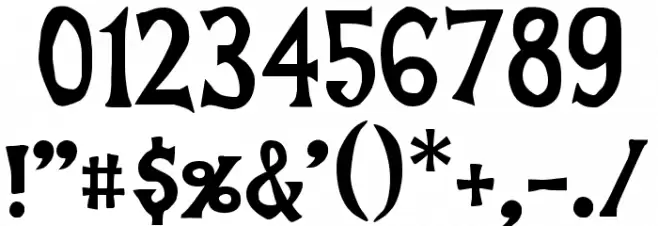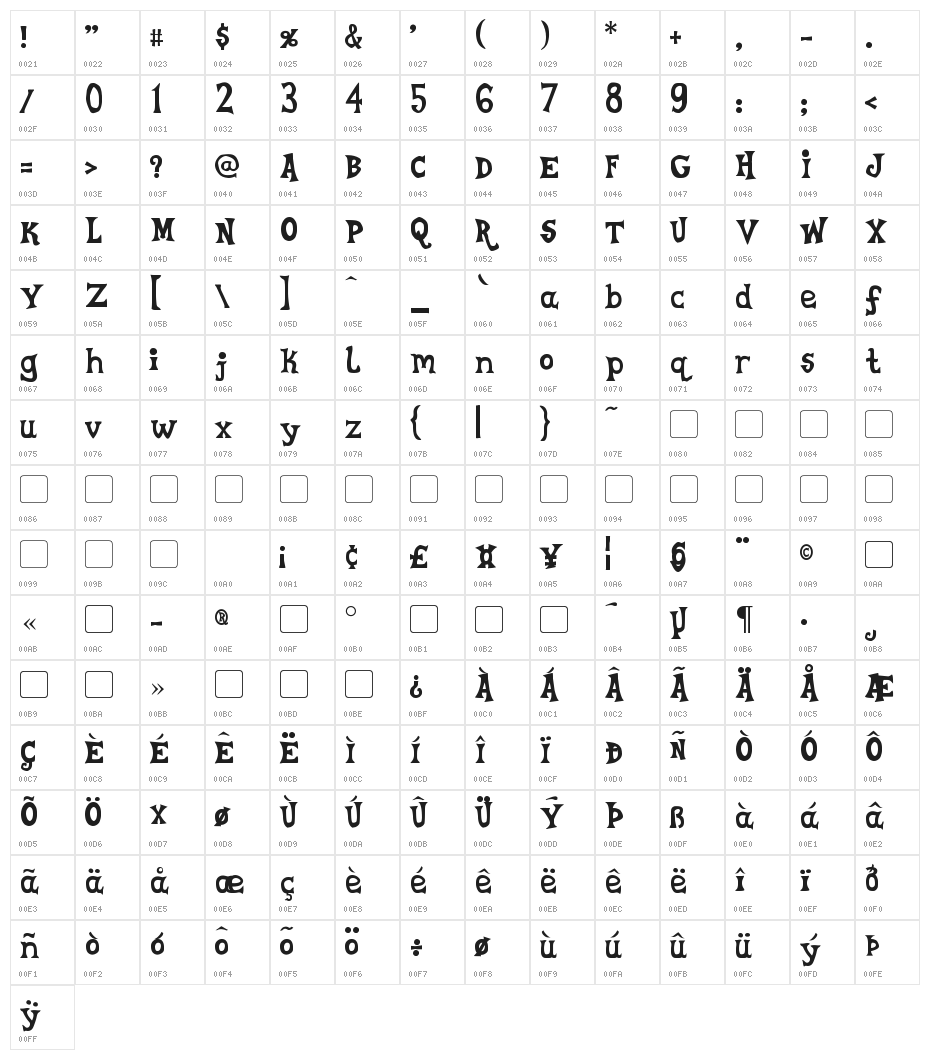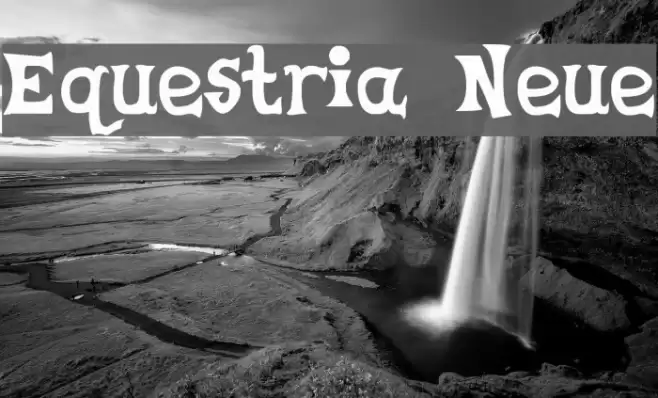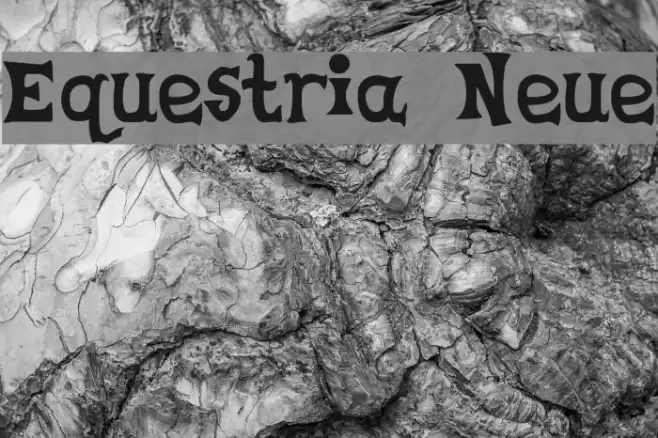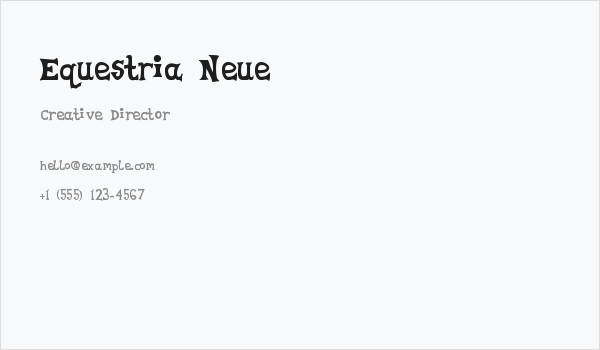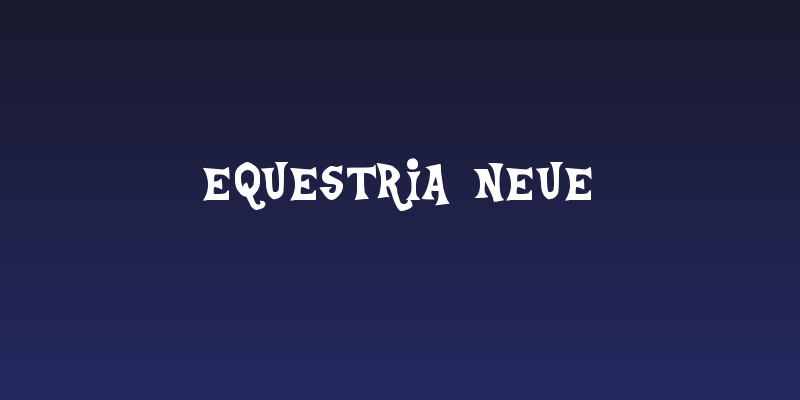
Equestria Neue Font
Equestria Neue Description
This font features a whimsical and playful design with a unique, hand-drawn appearance. The characters are bold and slightly irregular, giving them a lively and dynamic feel. The uppercase letters have a strong presence with exaggerated serifs and curves, while the lowercase letters maintain a consistent style with a touch of quirkiness. The numbers are equally bold, ensuring readability and consistency across different uses. Special characters are creatively designed, maintaining the overall playful theme. This font is perfect for projects that require a fun and engaging look.